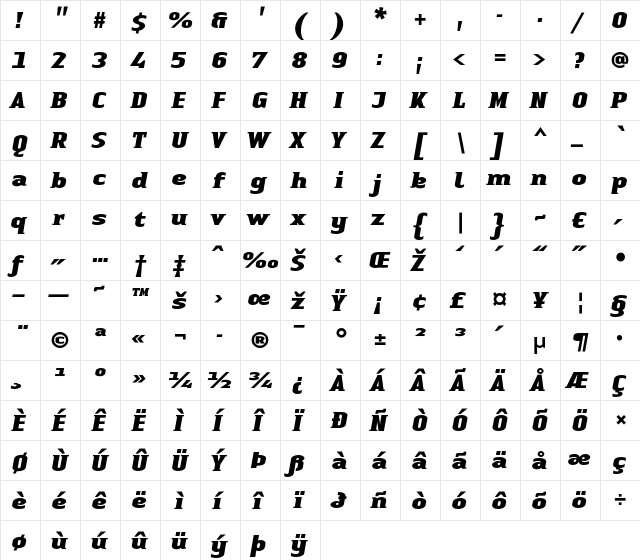
LTAuthenticSmallSerif Medium Regular Font Preview
LTAuthenticSmallSerif Medium Regular
Design Context for LTAuthenticSmallSerif Medium Typeface
LTAuthenticSmallSerif Medium brings classic typographic sensibility to the table — its serifs and measured letterforms reflect centuries of print heritage.
Pro Tip: Use LTAuthenticSmallSerif Medium for editorial body copy and considered headline work. Pair with a neutral sans for UI elements or captions to create a classic hierarchy.